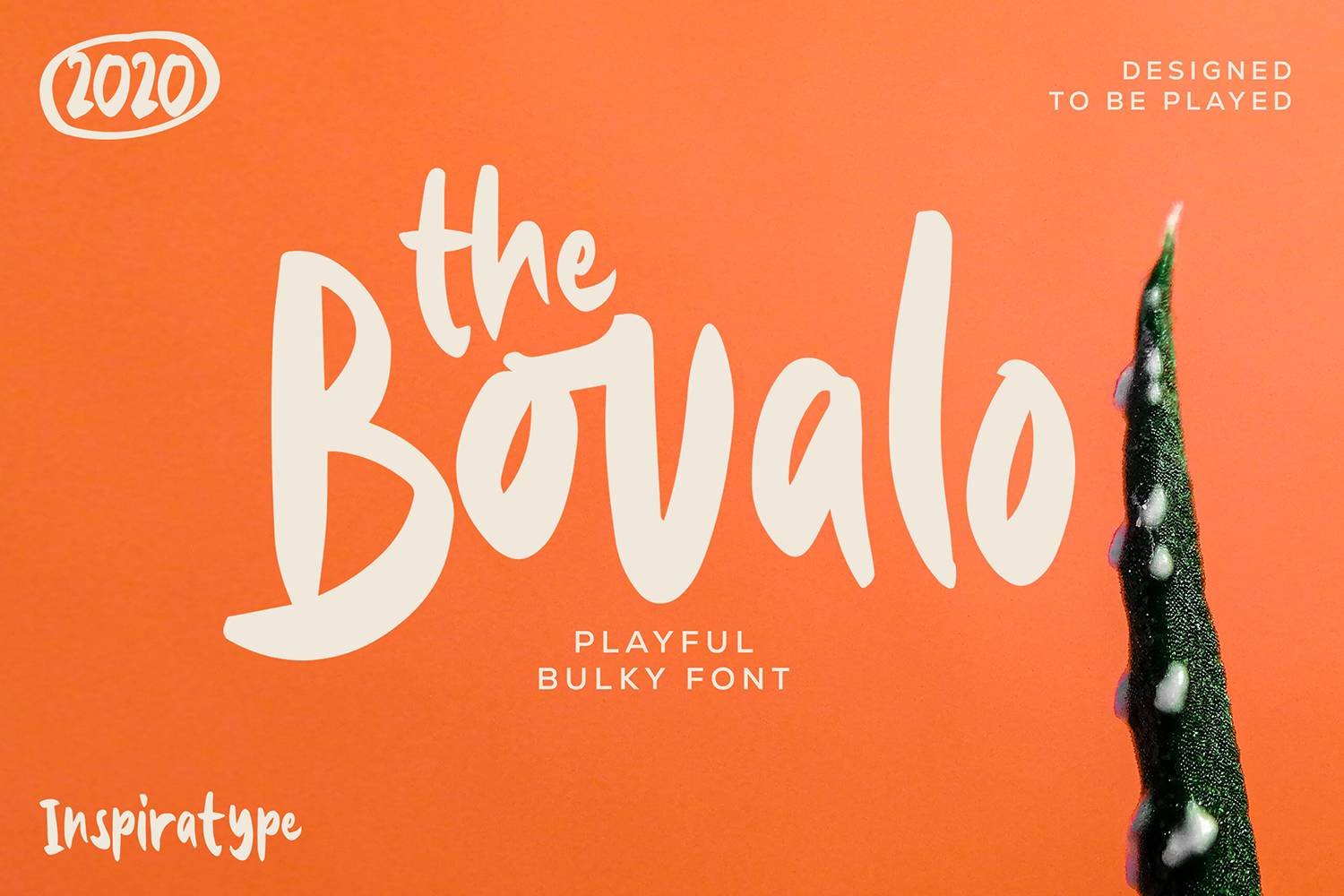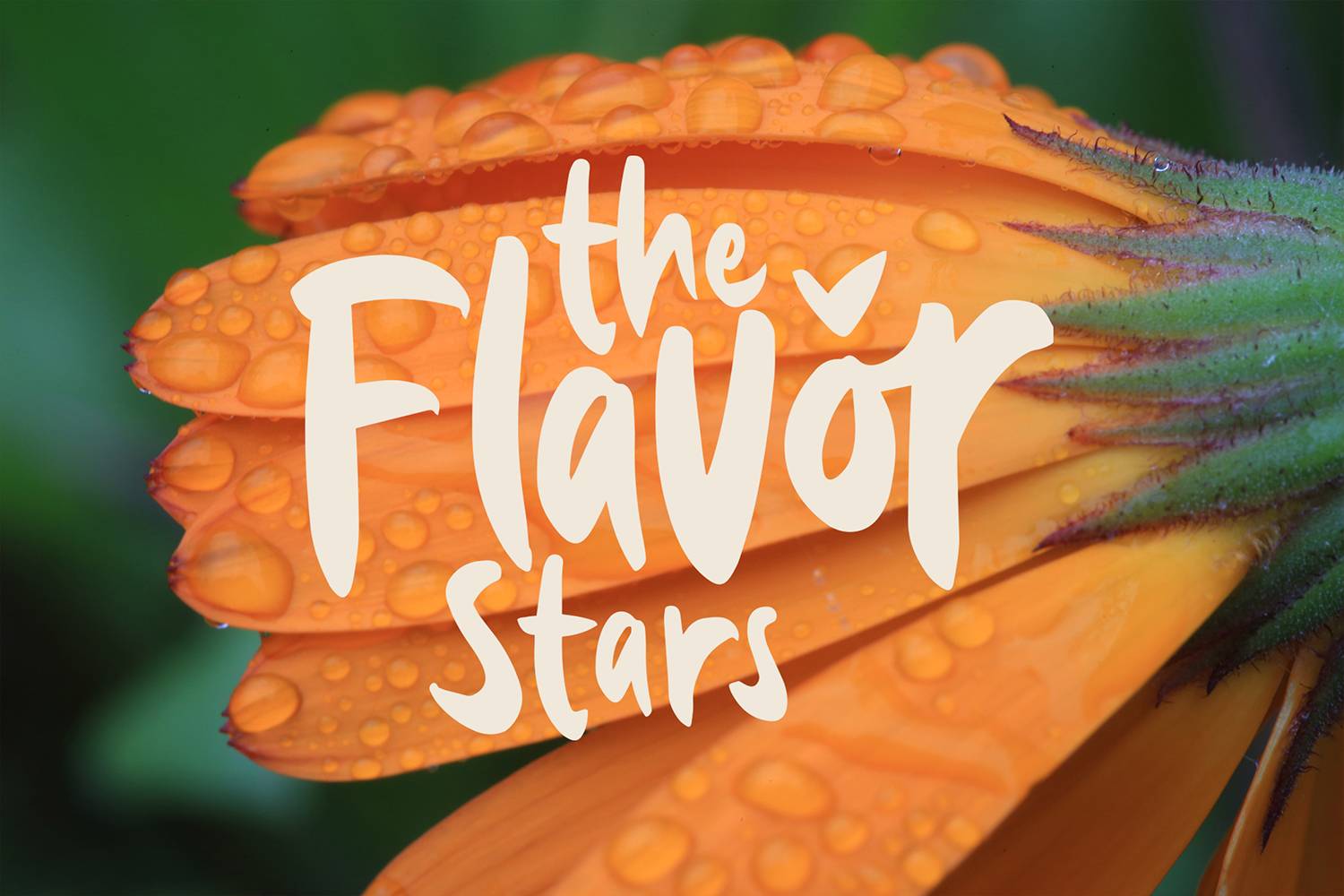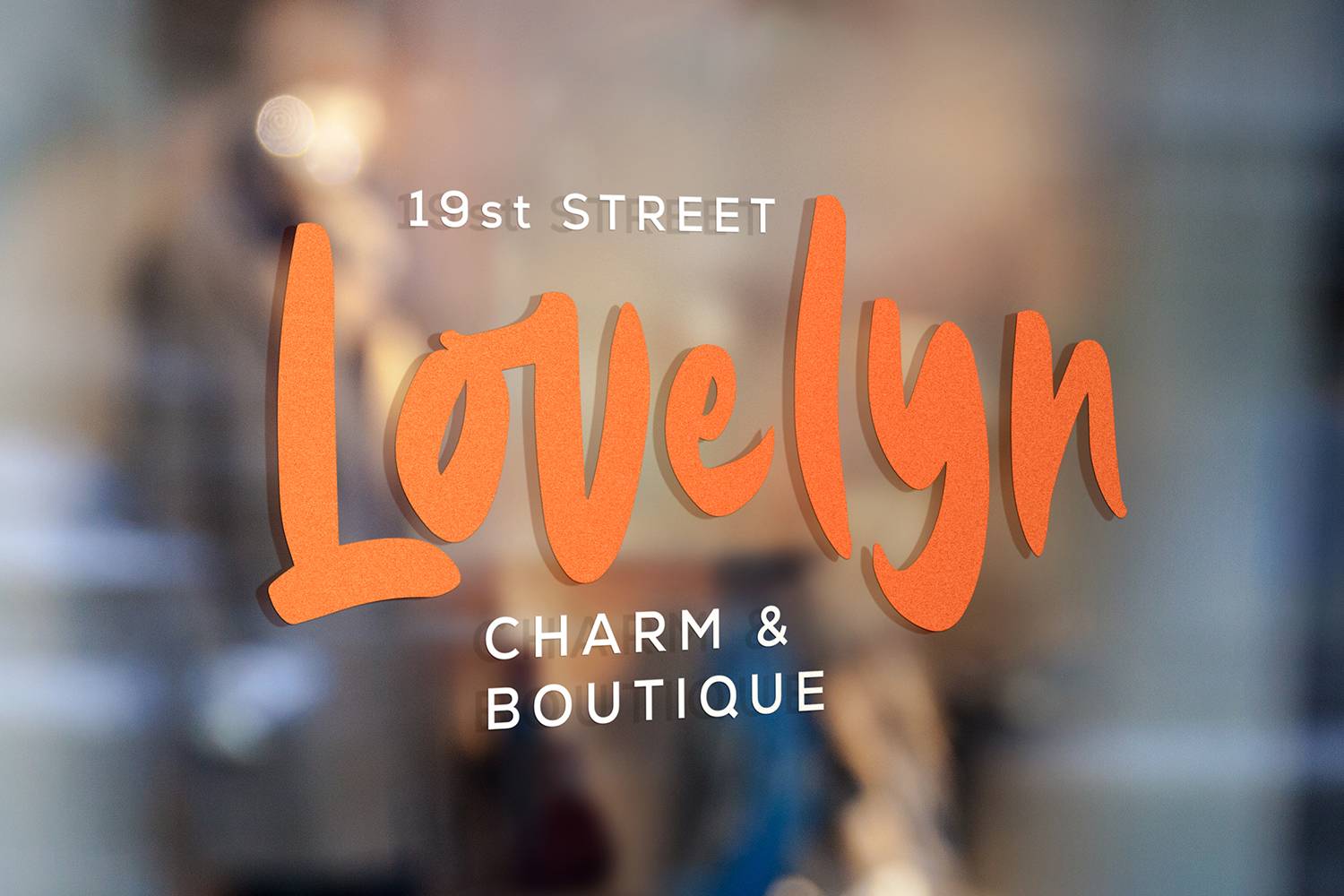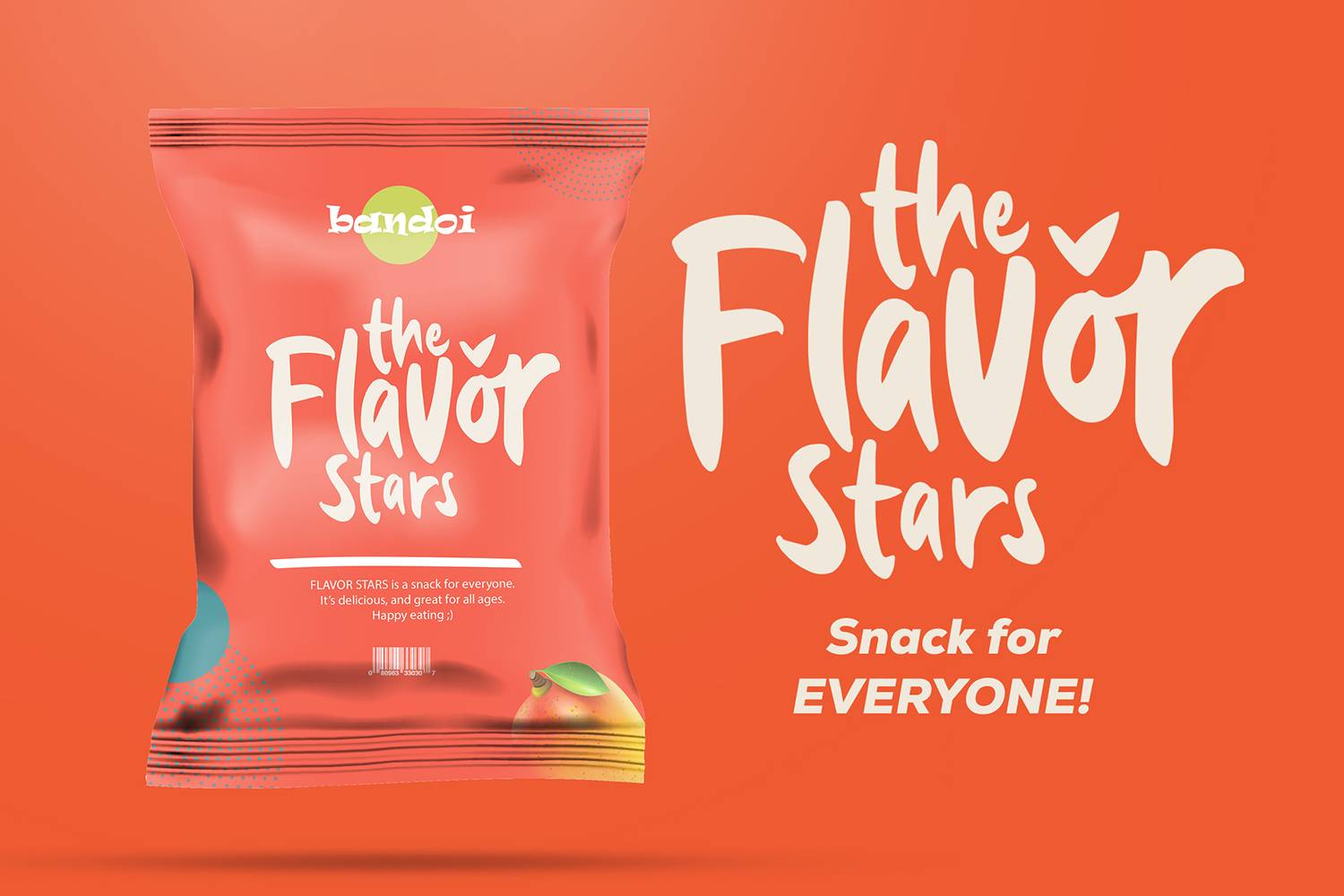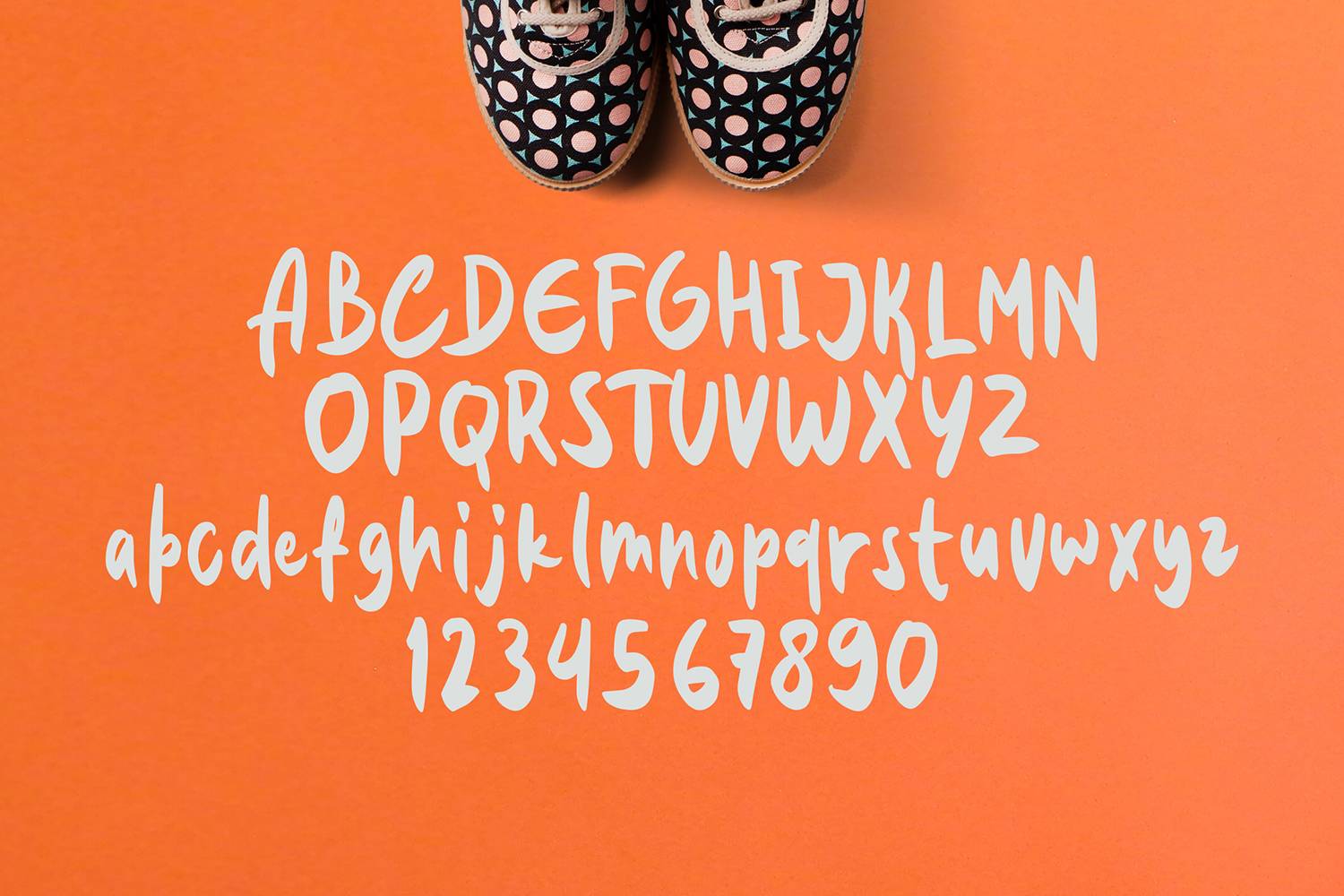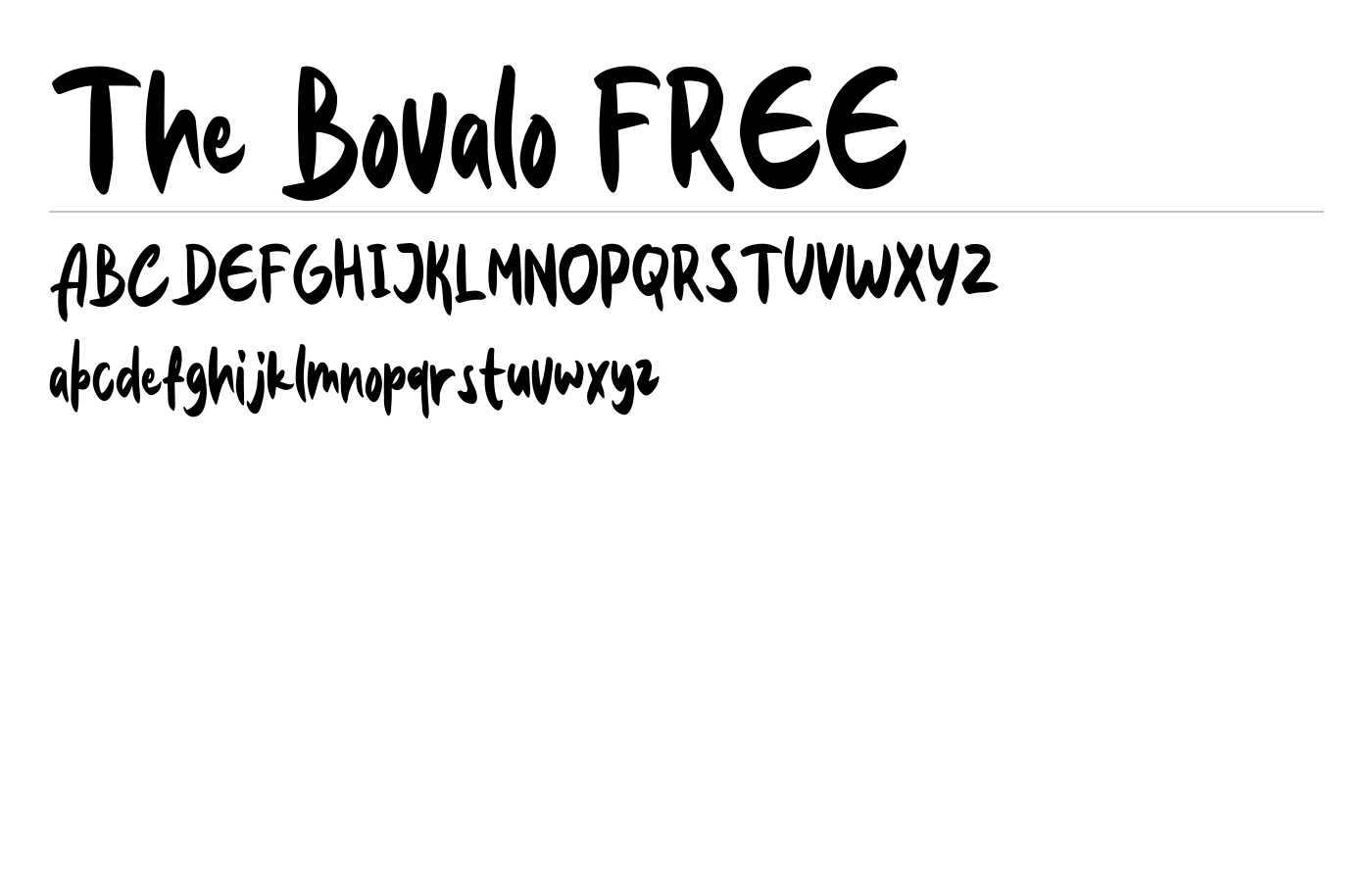
The Bovalo Font is a bold, playful handwritten typeface with a lively and casual feel. Its tall, irregular letterforms and slightly condensed width give it an energetic personality, making it perfect for eye-catching headlines, creative branding, and informal designs. This font works well where a friendly, approachable style is desired, such as posters, logos, and social media graphics.
The Bovalo Font
About The Bovalo Font
| Font family | The Bovalo Font |
| Designer | Inpiratype |